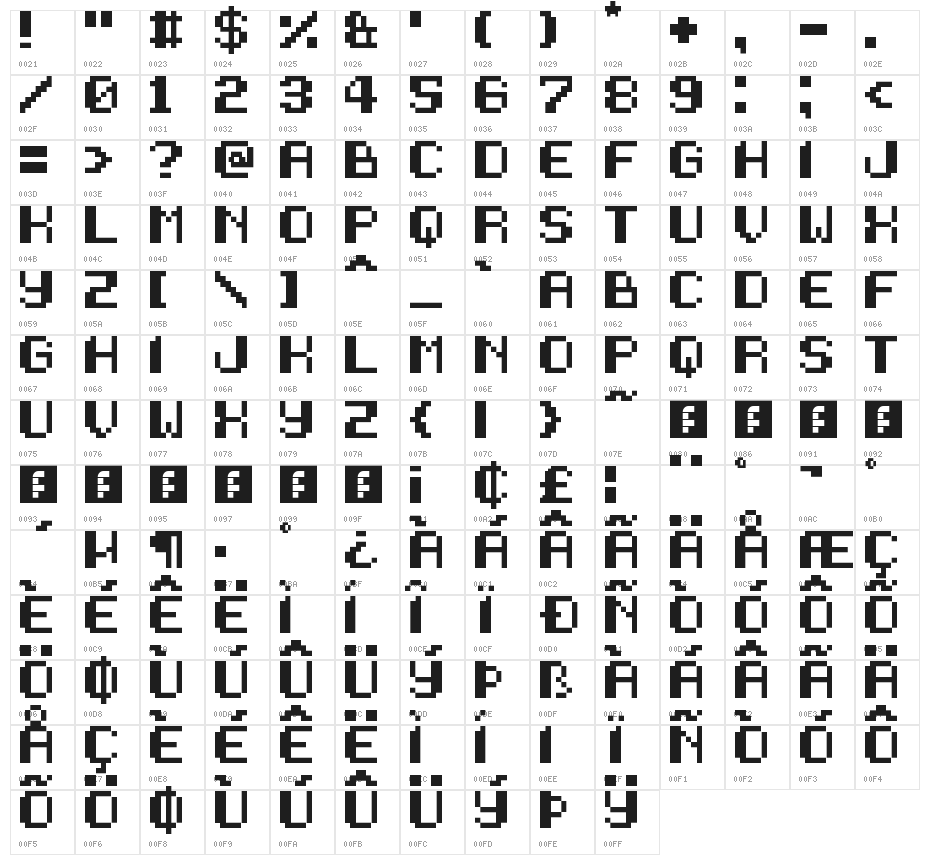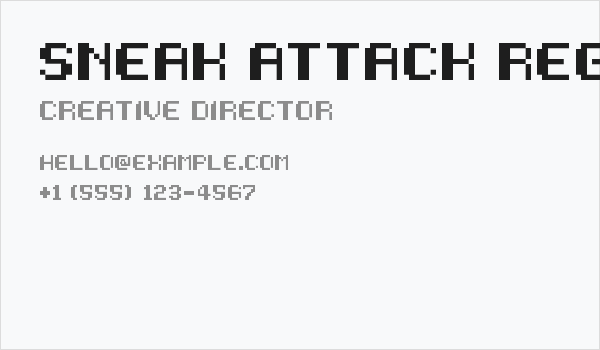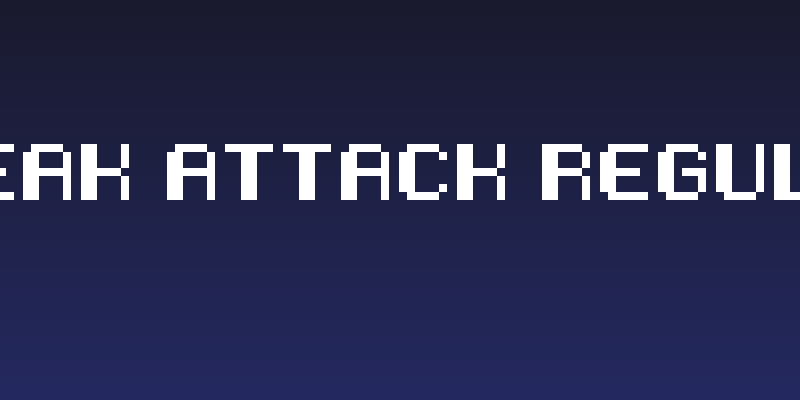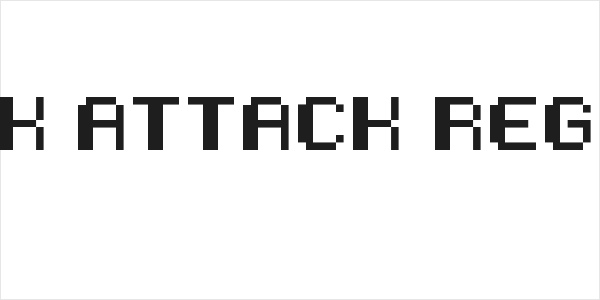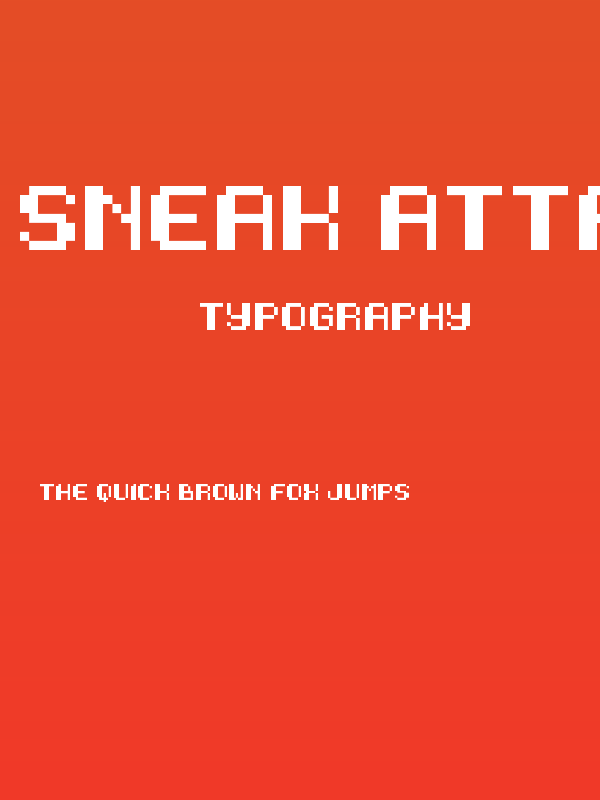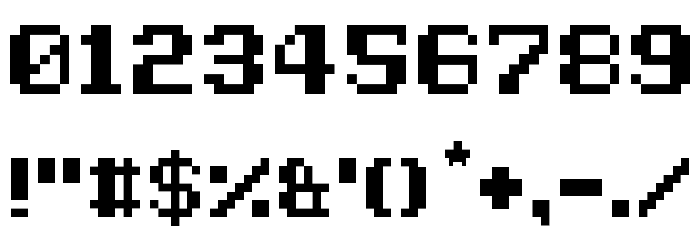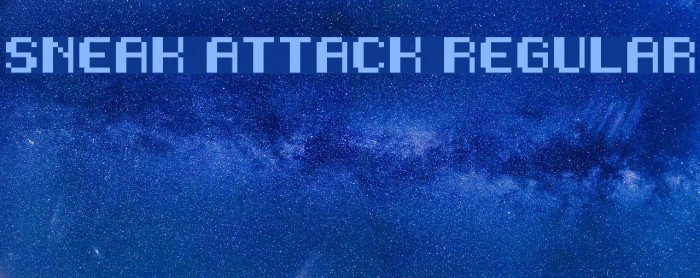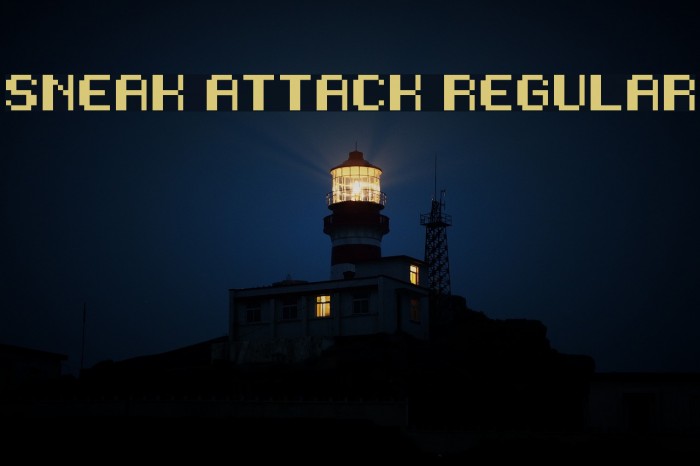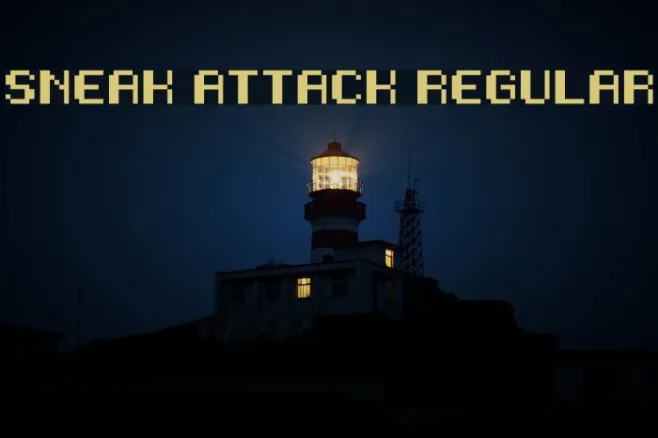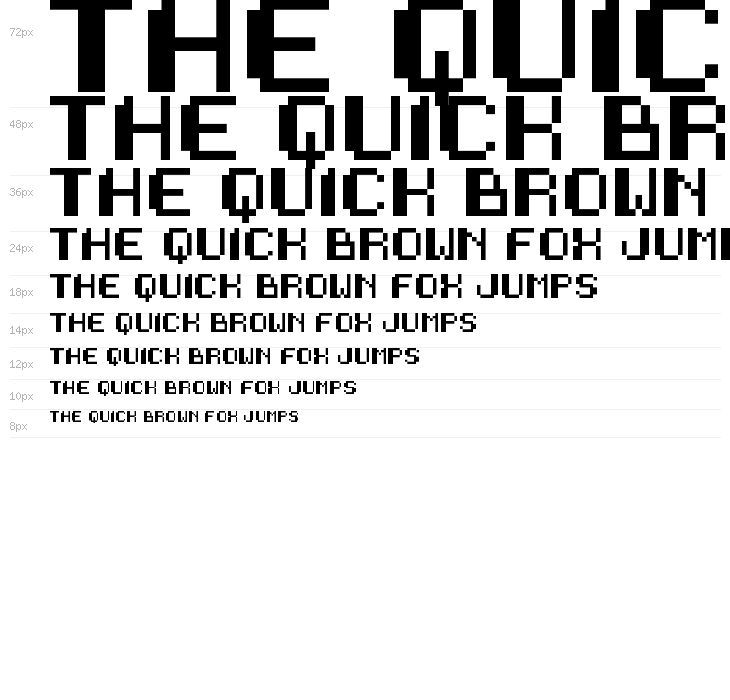
Sneak Attack Regular Font
Sneak Attack Regular Description
This font features a bold, pixelated style reminiscent of early digital or video game aesthetics. Each character is constructed with a blocky, grid-like appearance, giving it a retro, arcade feel. The uppercase and lowercase letters maintain a consistent height, emphasizing the uniformity typical of pixel fonts. Numbers and special characters follow the same design principles, ensuring a cohesive look across all glyphs. The font's distinct style makes it ideal for projects that aim to evoke nostalgia or a tech-inspired theme.
| Proposed Projects | Ideal for video game design, retro-themed posters, digital art, and tech-related branding. |